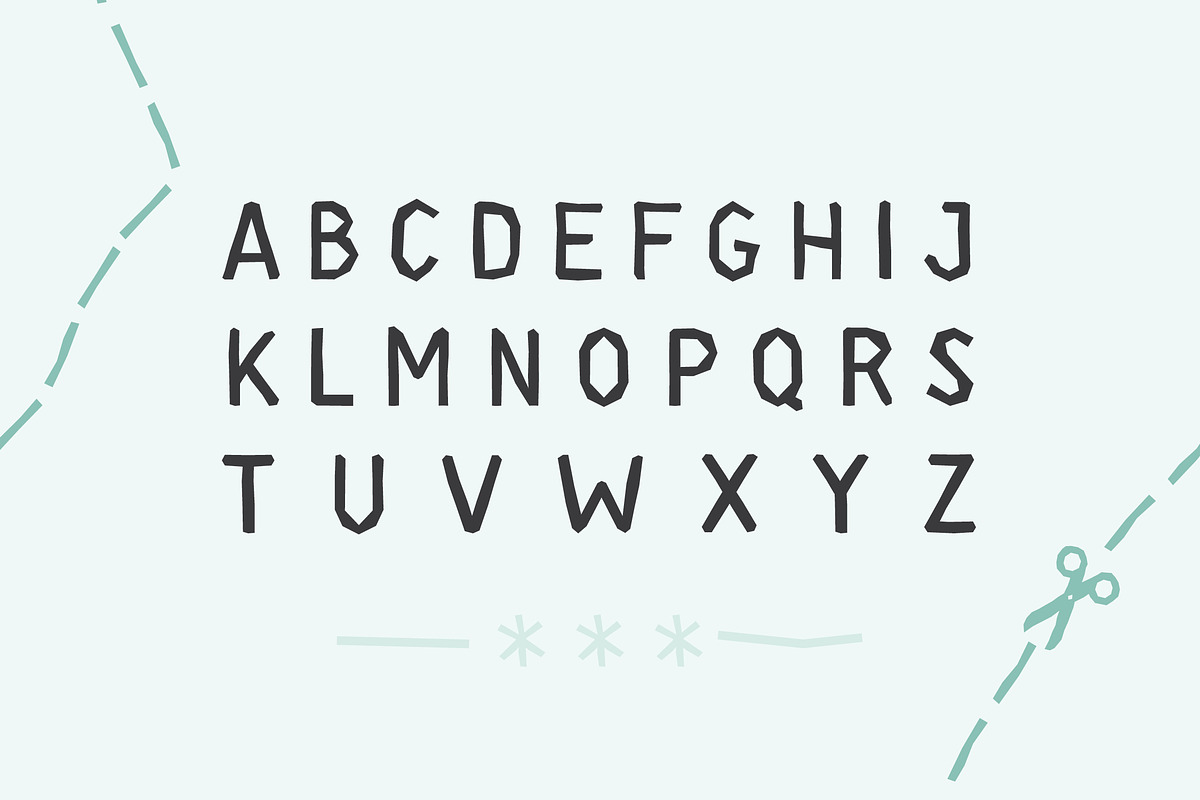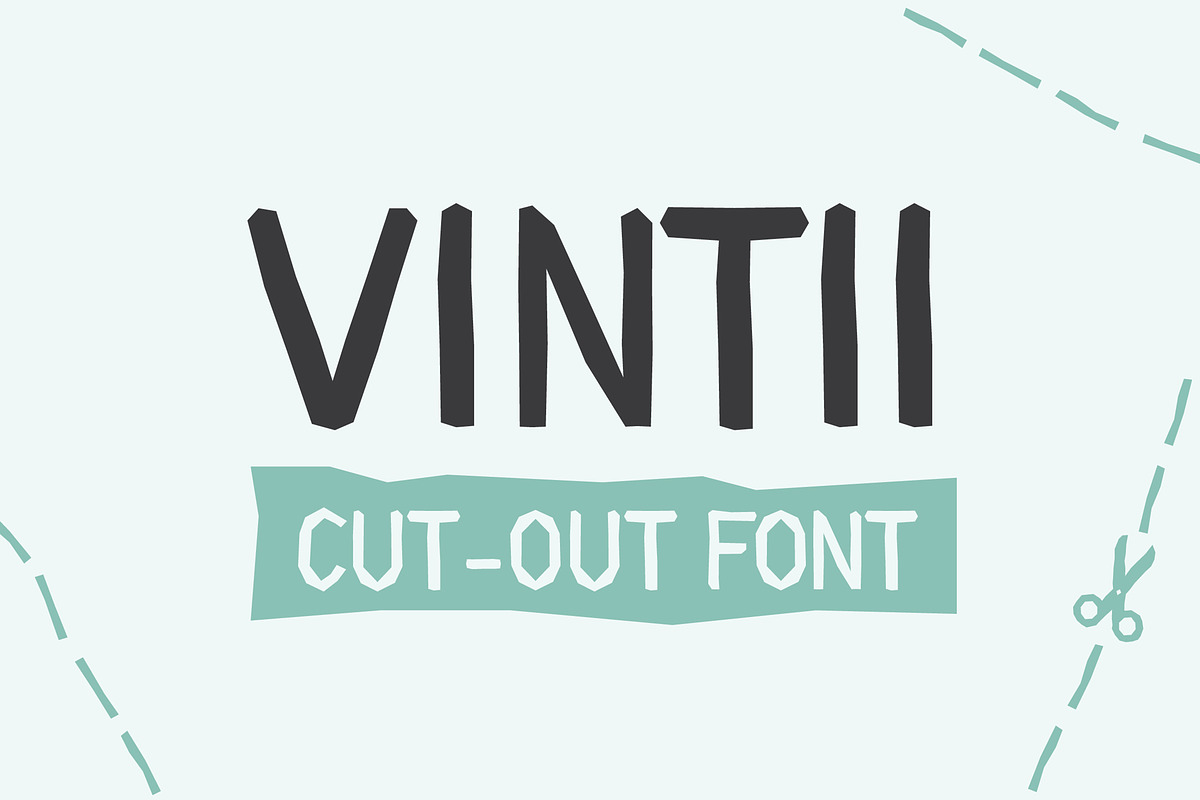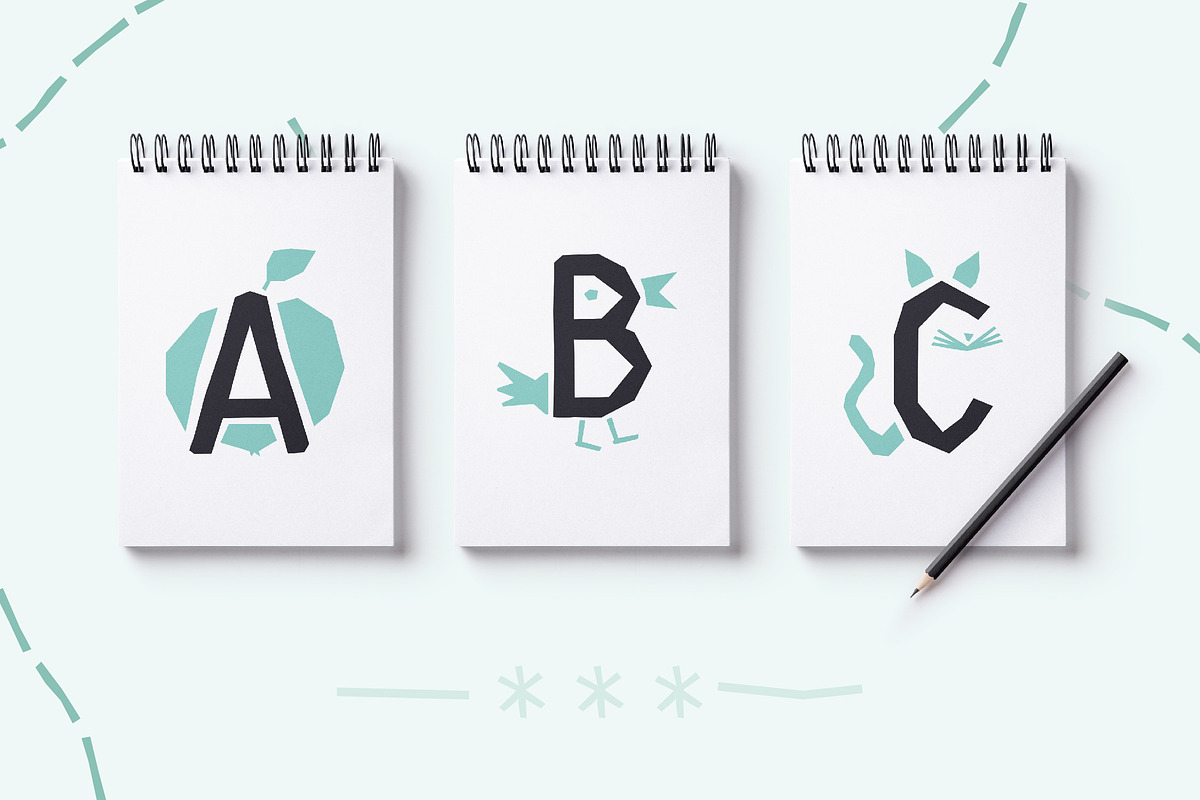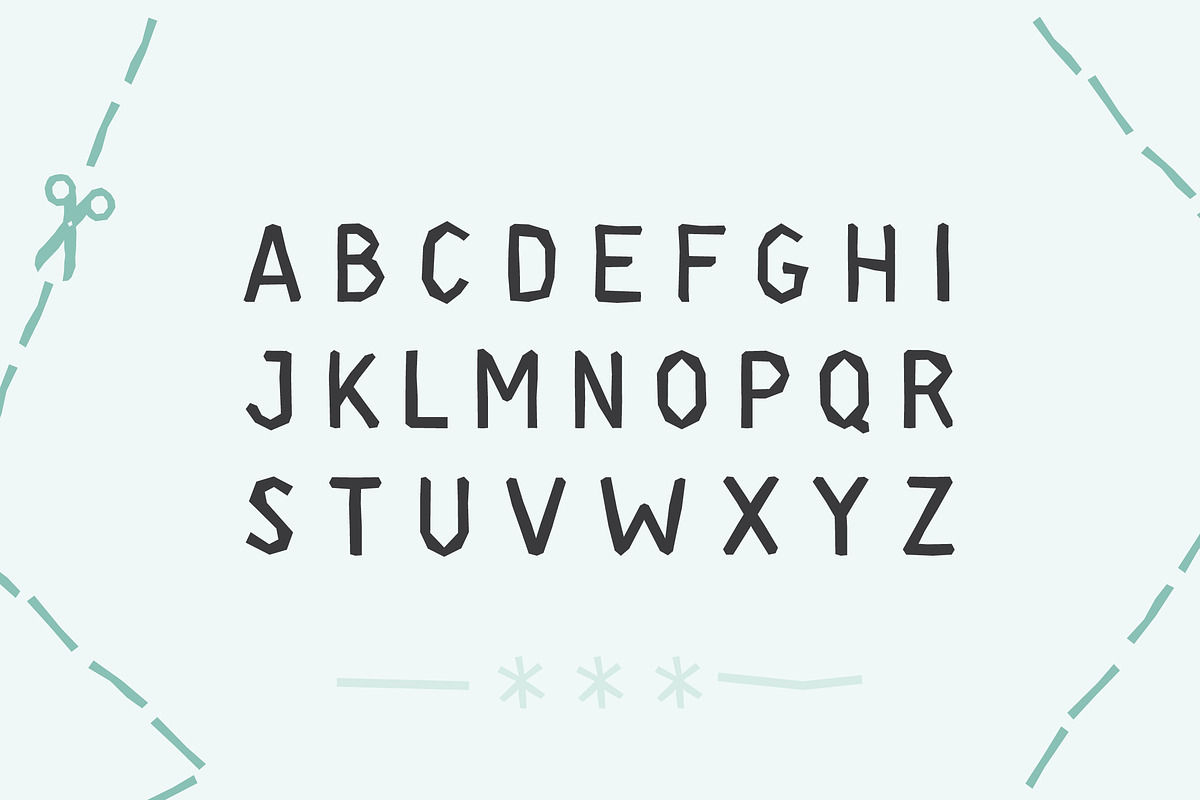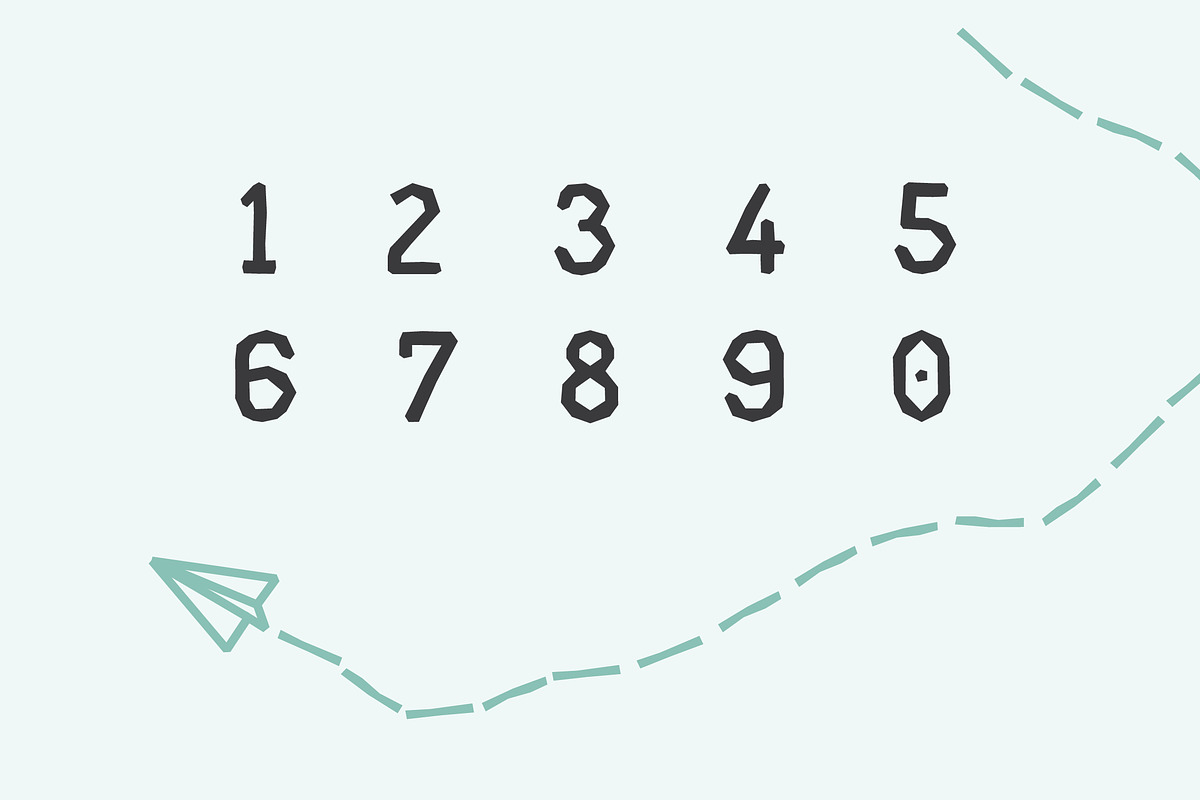
Vintii font
Vintii is decorative cut-out uppercase font. Inspiration for this font comes from paper and scissors - bold, fun, asymmetric letter forms. This font is great for headlines, logos, posters packaging and short description texts.